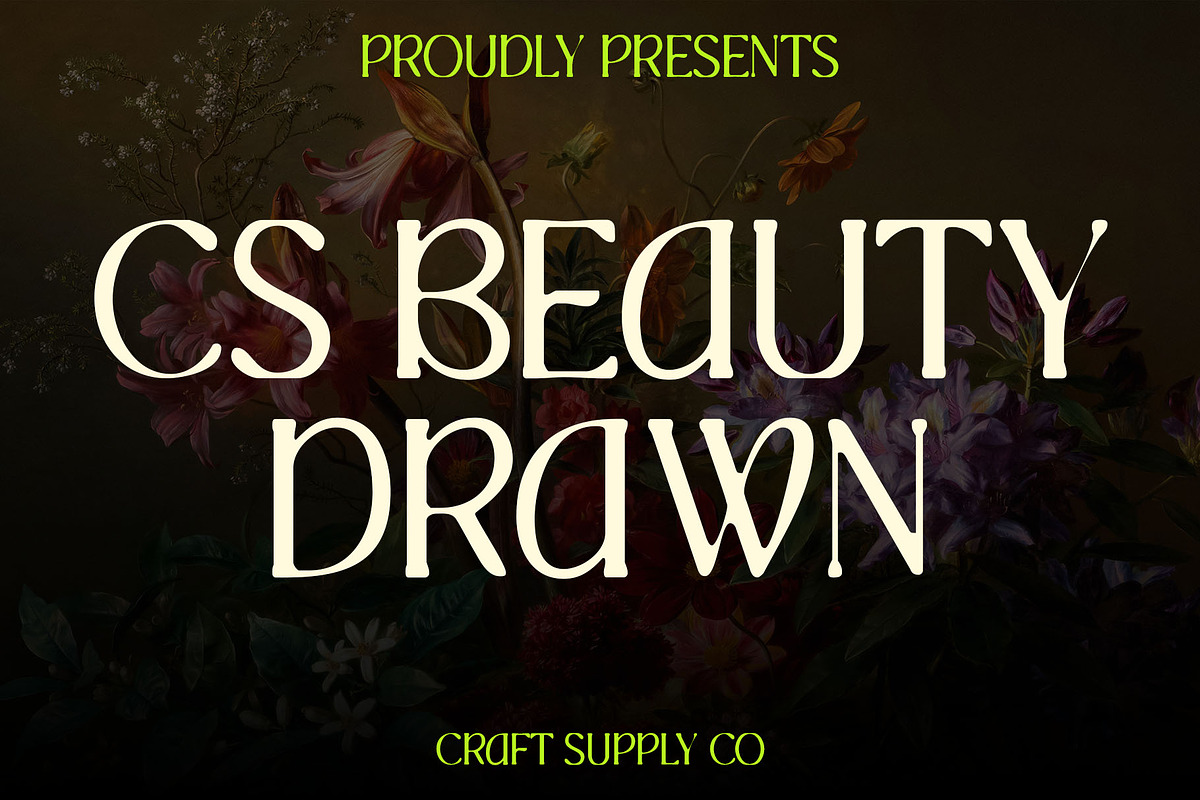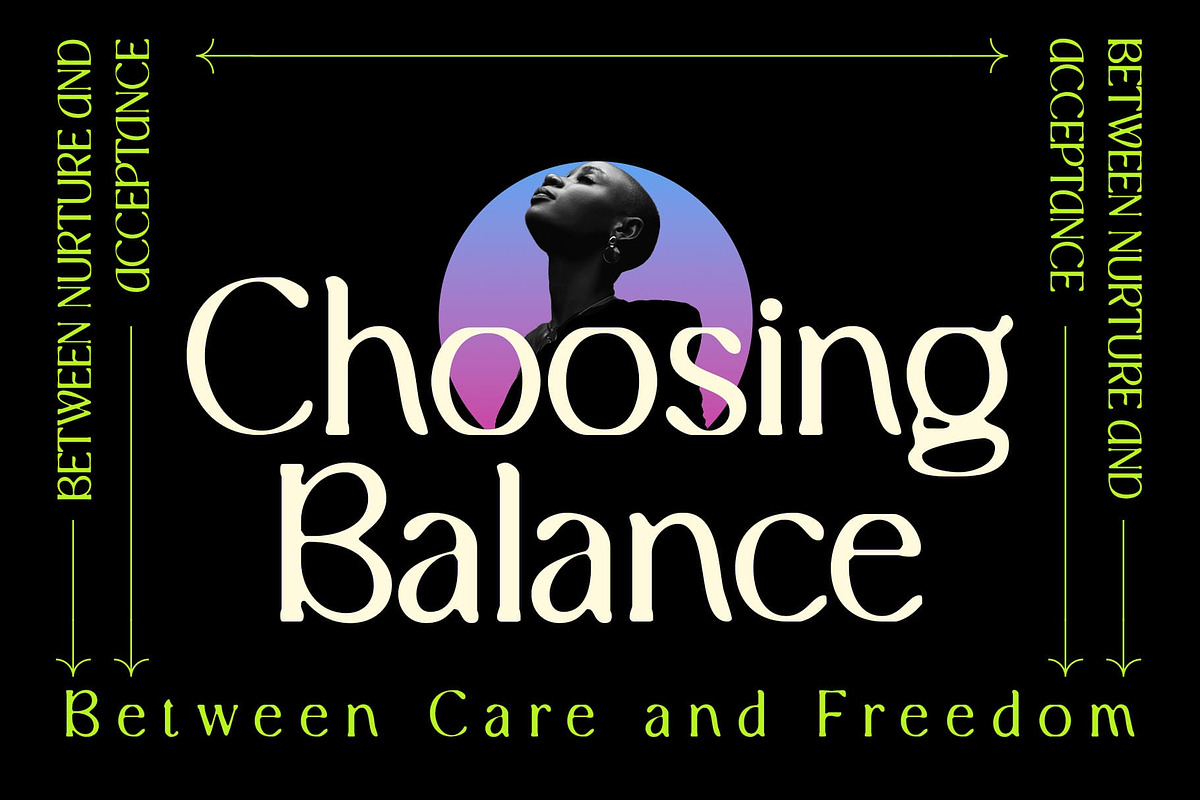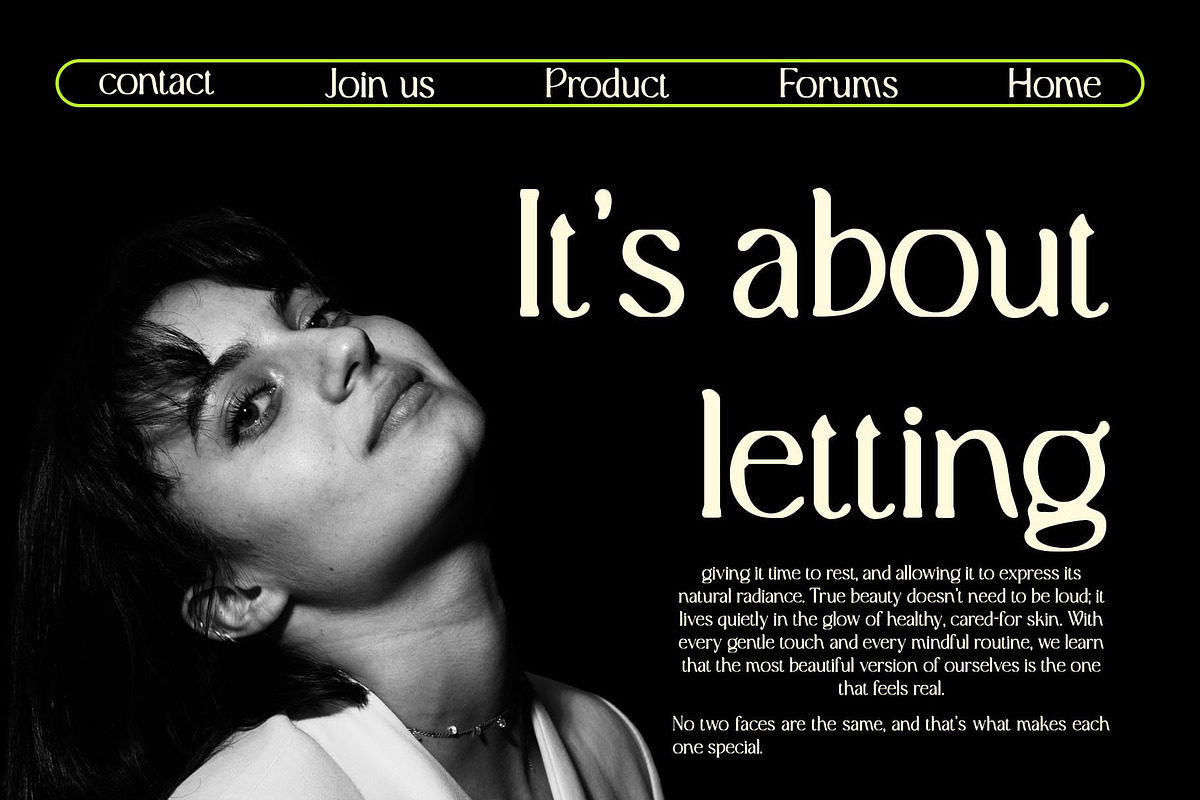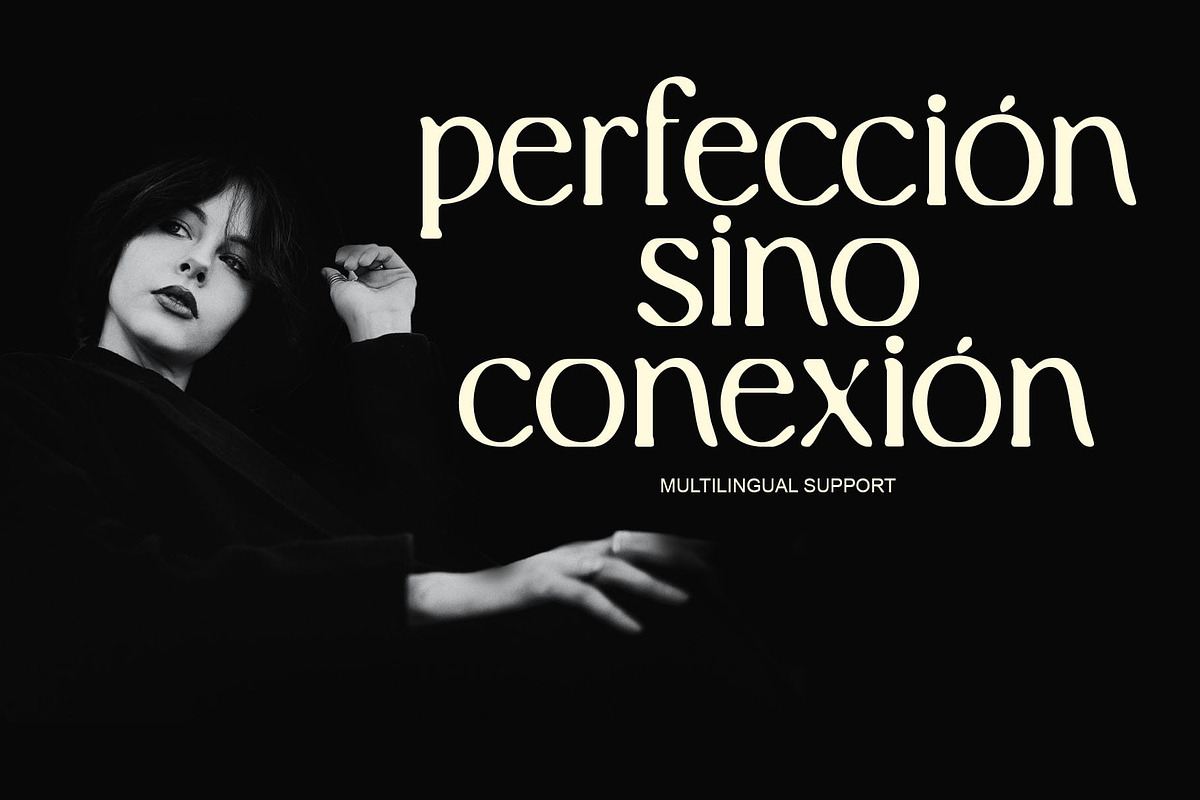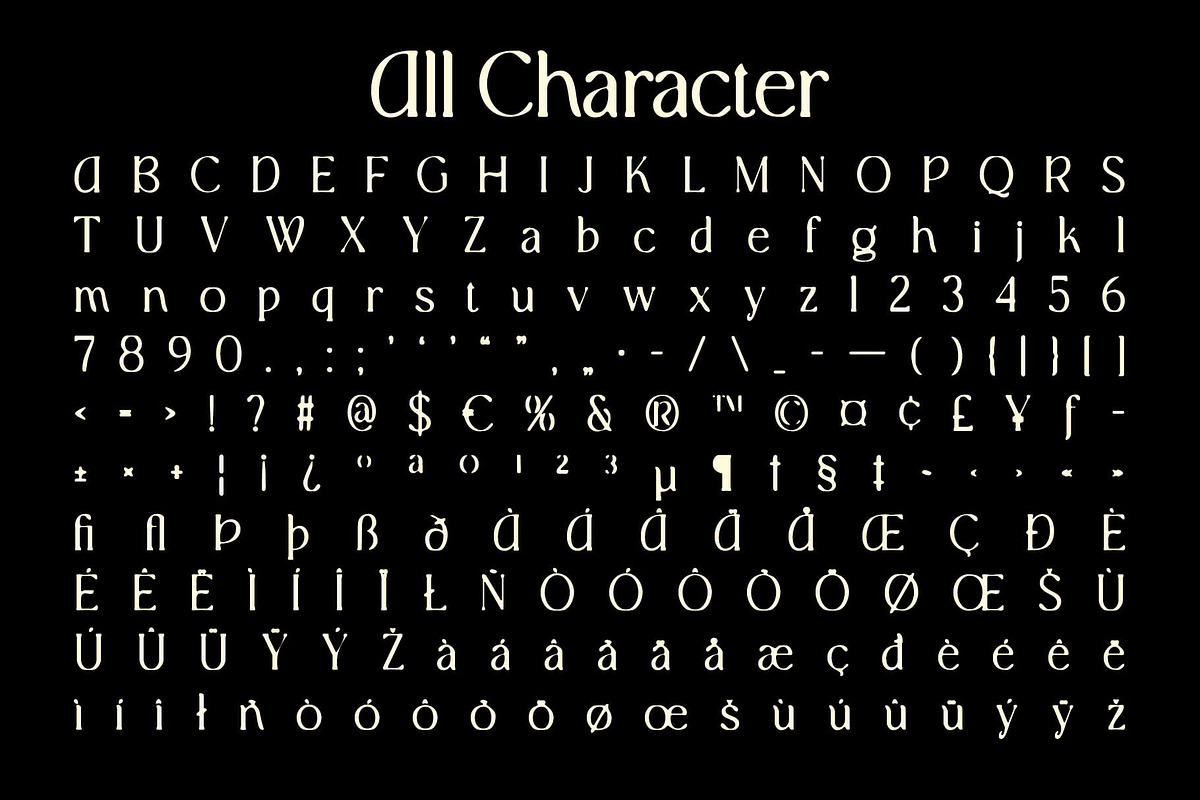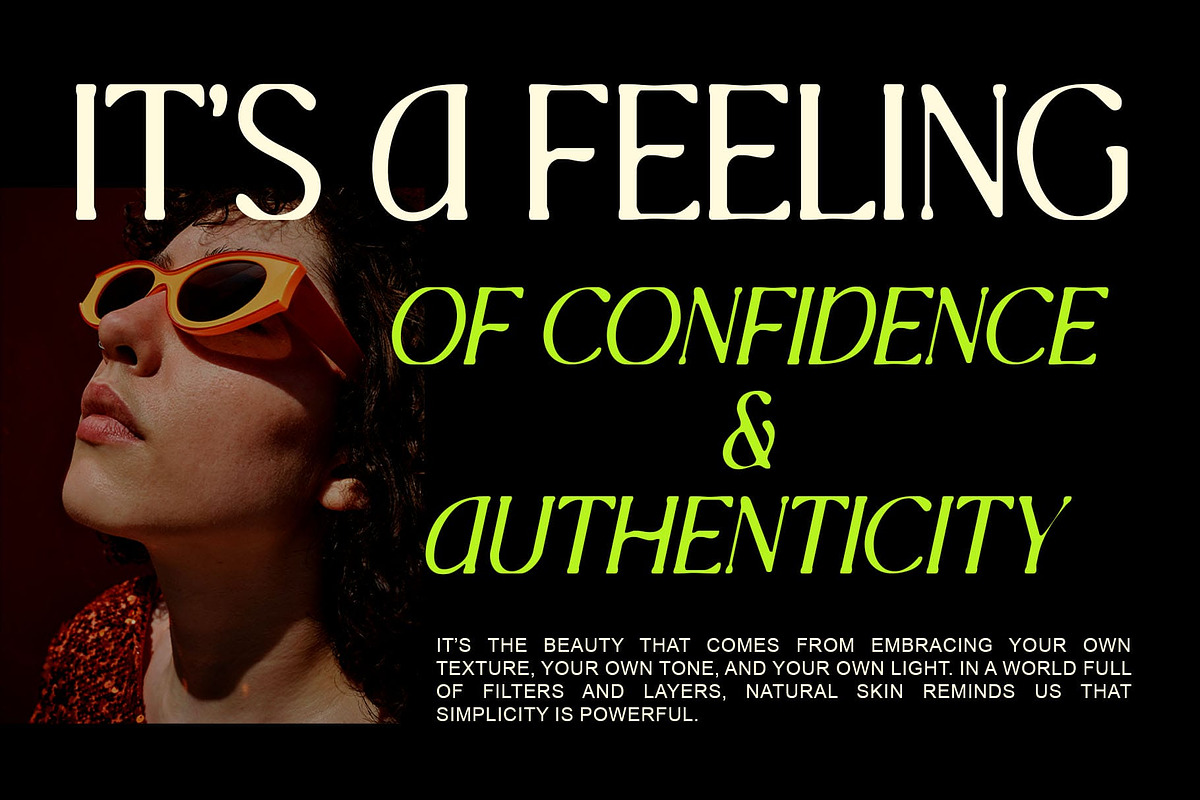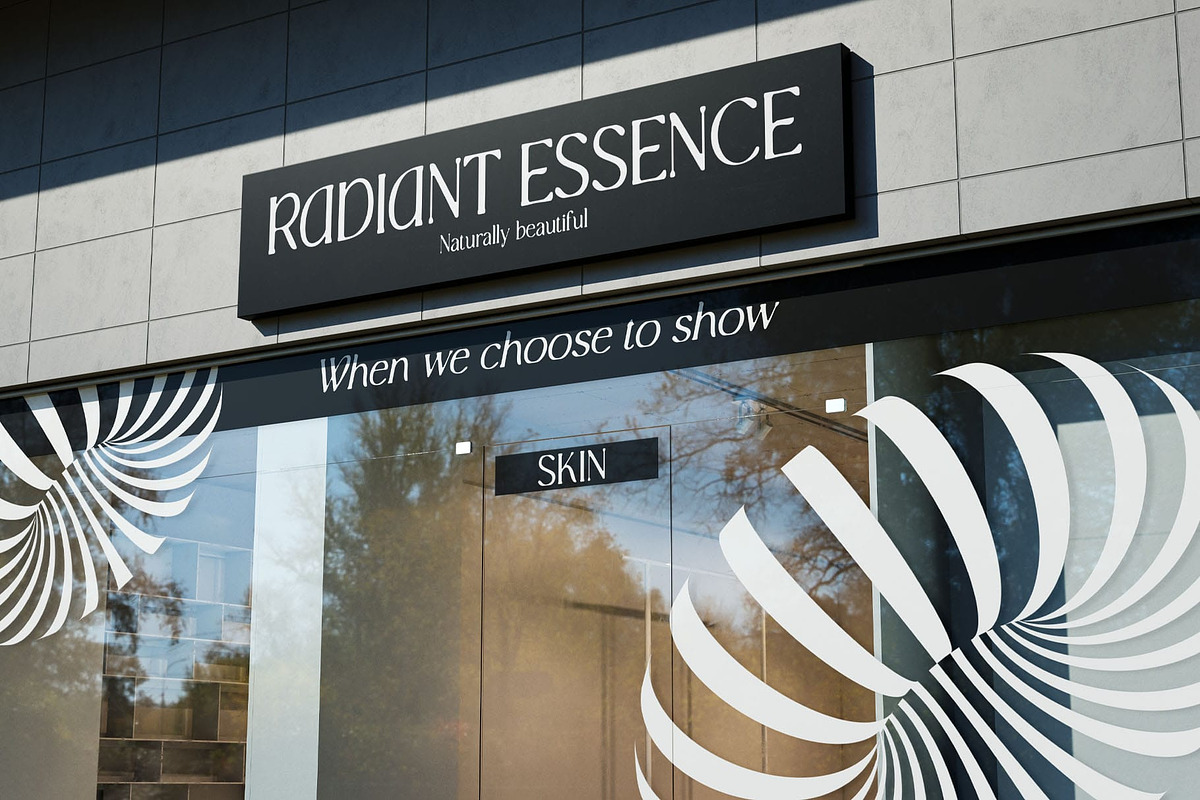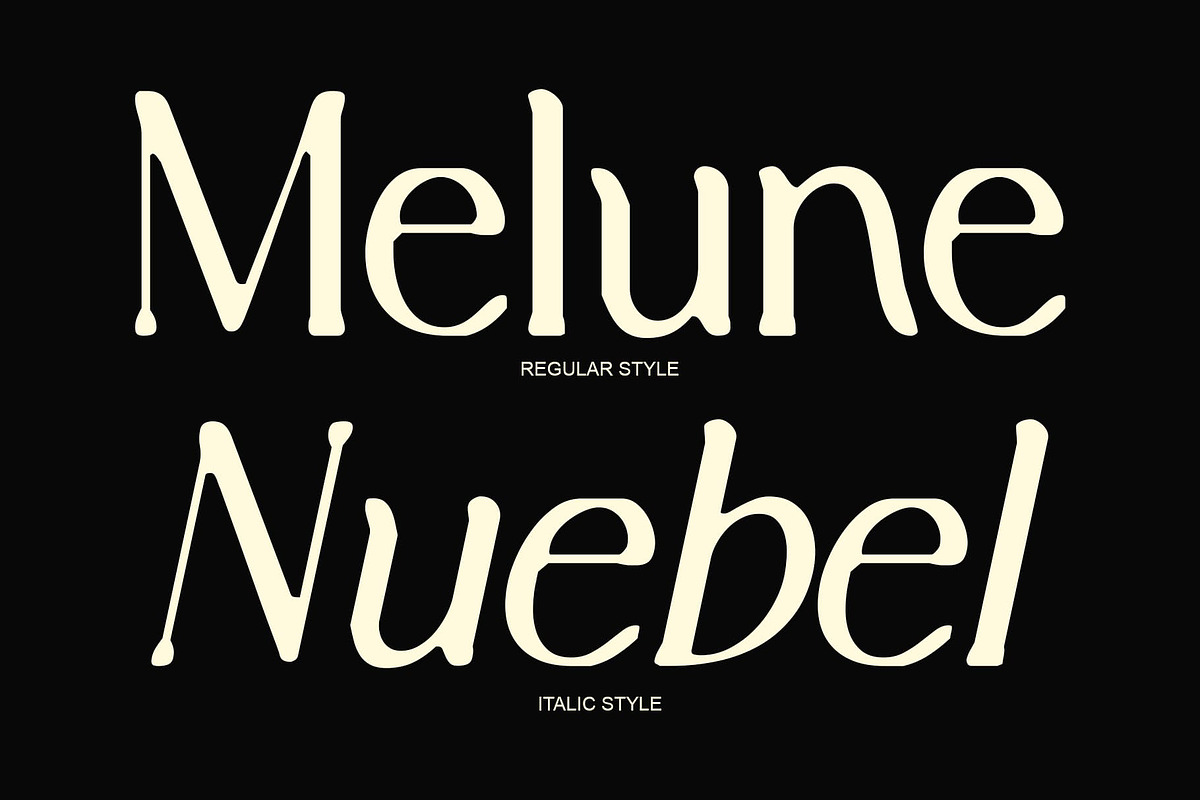
CS Beauty Drawn
CS Beauty Drawn – Modern Serif with Hand-Drawn Sophistication: Grace in Every Line
Elegant Form with Refined Details This is a modern serif font defined by its slim proportions, clean structure, and graceful long serifs. Every stroke is crafted to express elegance and refinement, giving your typography a polished and high-end appearance that stands out effortlessly.
Hand-Drawn Texture for Distinct Personality The drawn effect adds a handcrafted charm that softens its sleek modernity, infusing warmth and authenticity into every letter. This subtle texture enhances the visual depth, making the font feel both sophisticated and approachable a true balance of precision and personality.
Contemporary Style with Artistic Flair By combining elongated, slender shapes with delicate drawn detailing, this font bridges the gap between modern design and artisanal craft. It radiates creativity while maintaining a sense of structure and poise, perfect for projects that demand elegance with individuality.
Perfect for Luxury and Creative Applications Ideal for luxury branding, editorial layouts, posters, and creative projects, this font delivers sophistication with a human touch. Its refined form and artistic texture make it the perfect choice for designers seeking to create a memorable, graceful, and timeless impression.